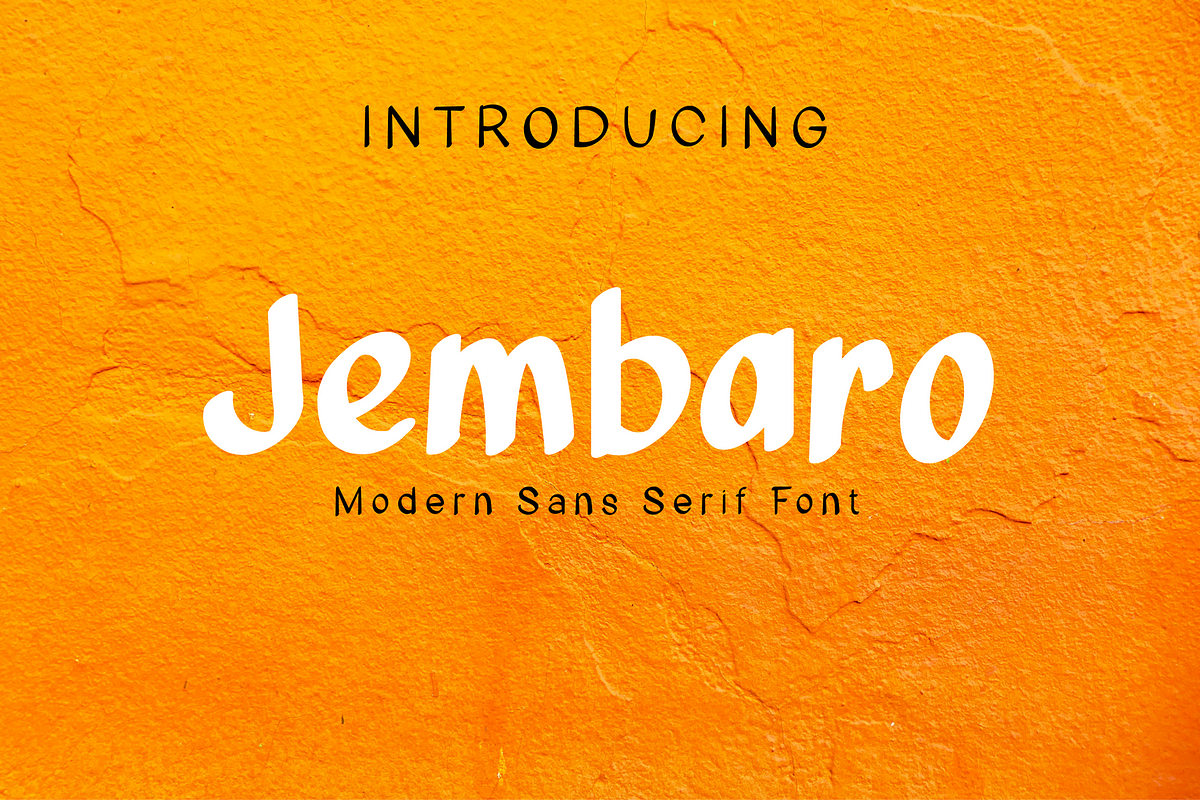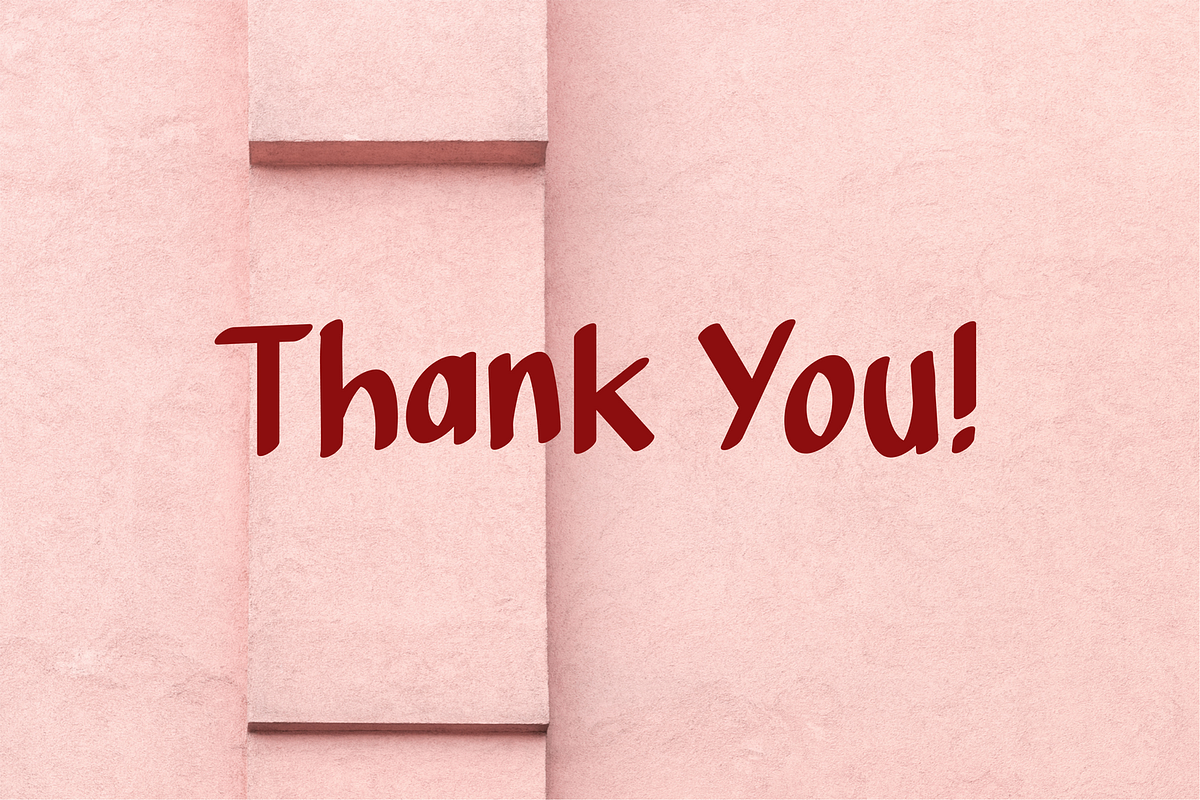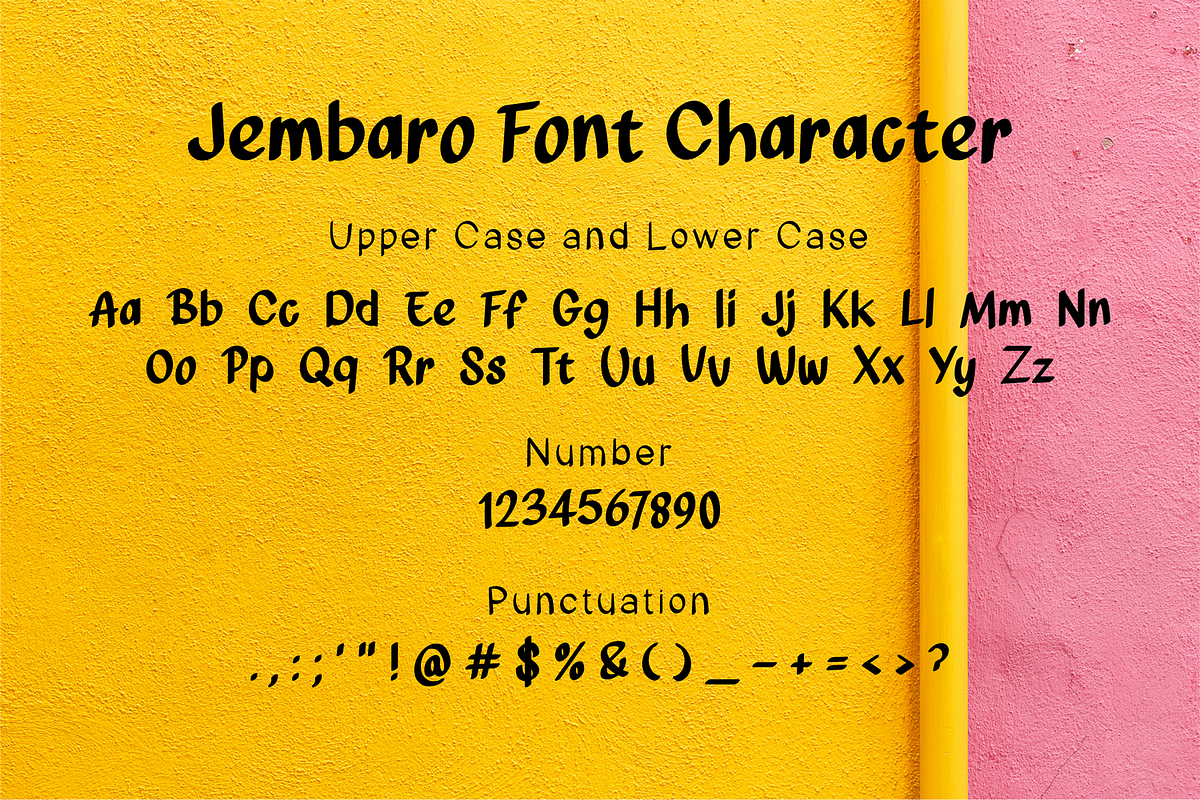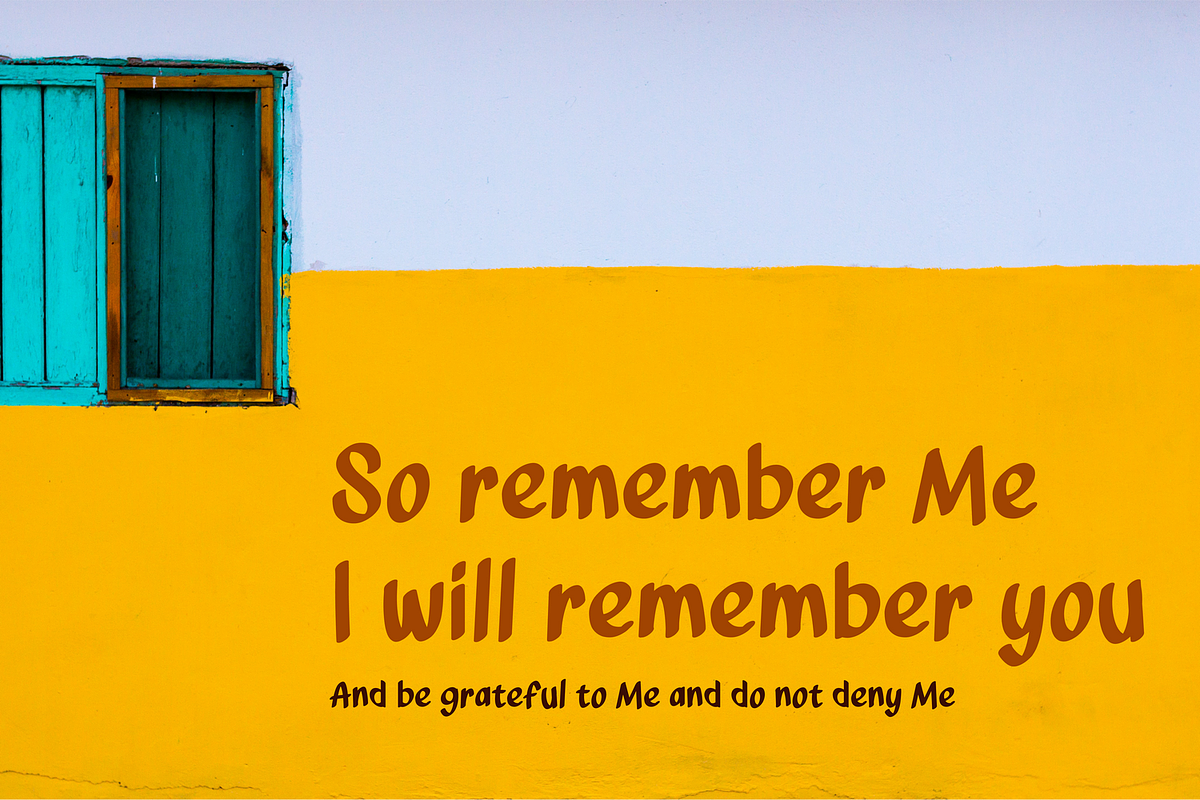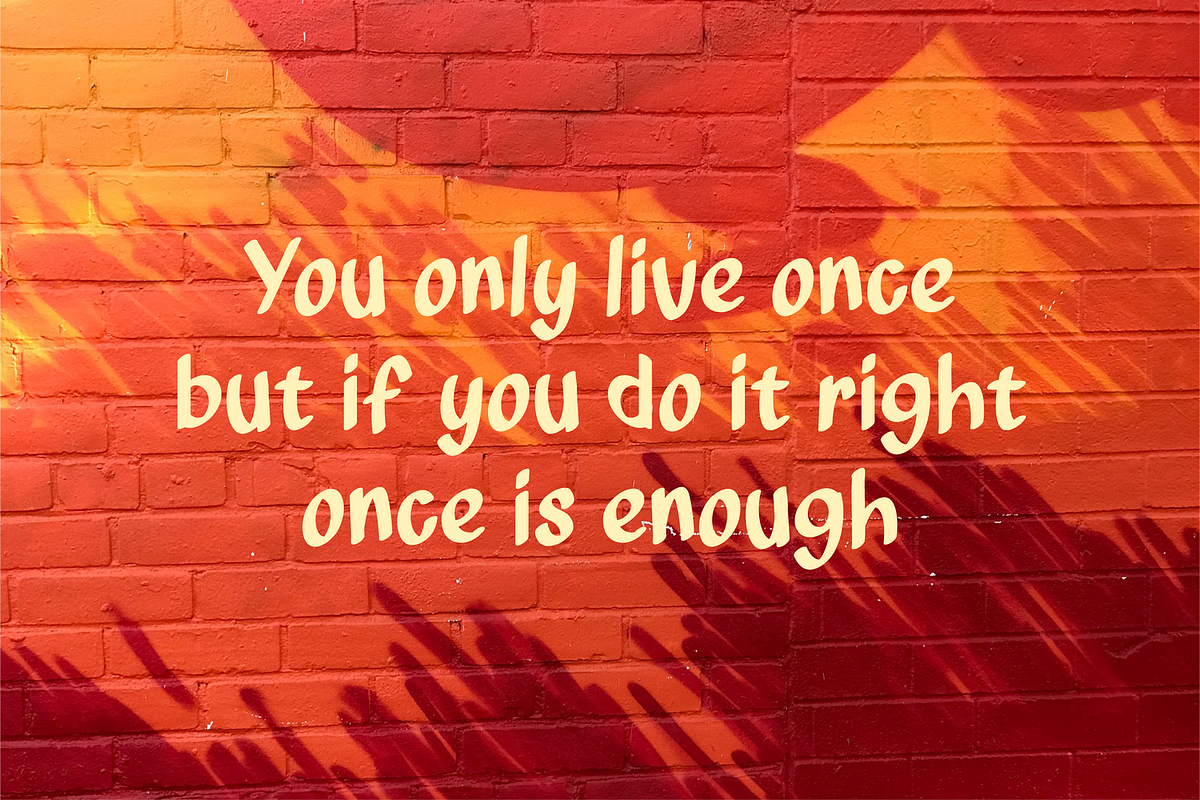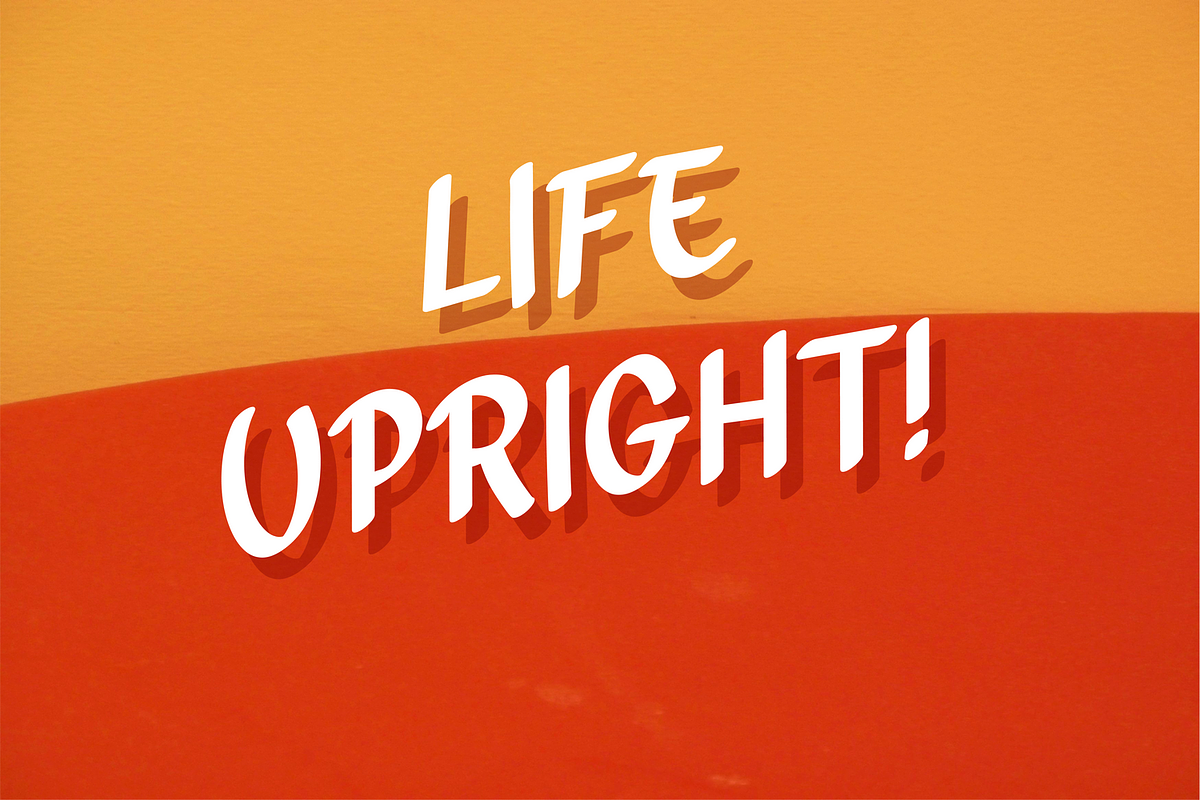
Jembaro Sans Serif Font
Introducing Jembaro - Modern Sans Serif Font
Jembaro is a modern sans serif font. Perfect for branding projects, logo, wedding designs, social media posts, advertisements, product packaging, product designs, label, photography, watermark, invitation, stationery and any projects that need handwriting taste.